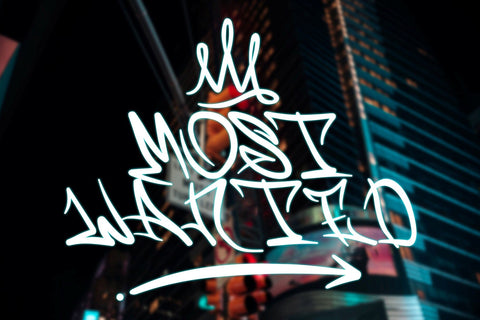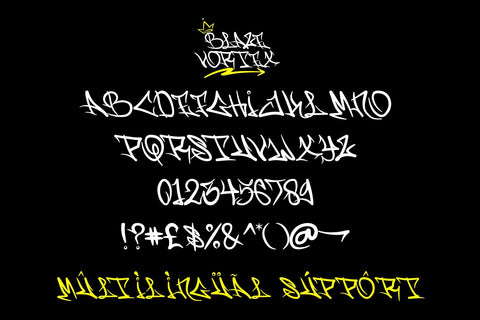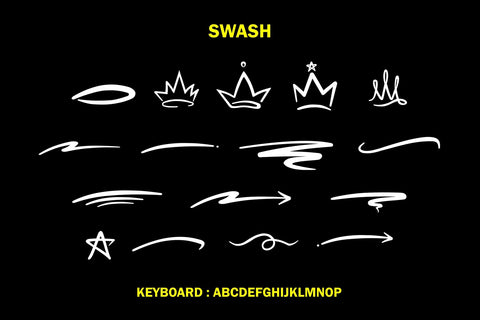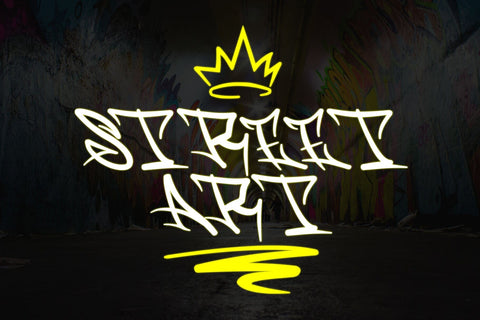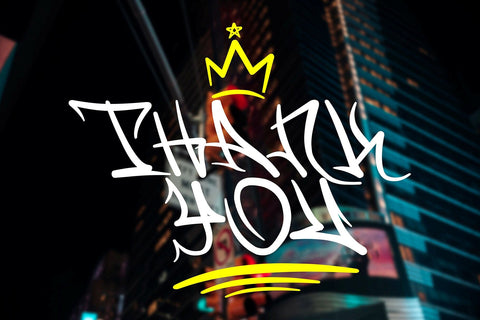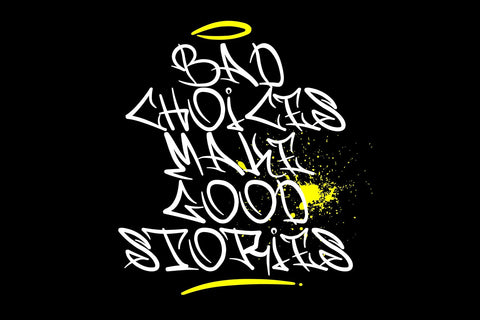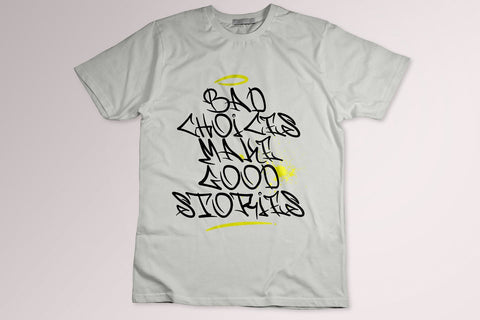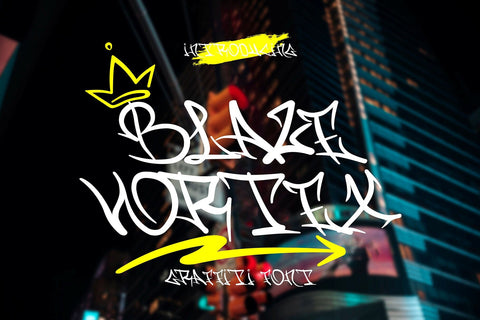
Blaze Vortex - Monoline curly Graffiti Font
"Blaze Vortex" is an edgy graffiti monoline font that adds a raw and urban touch to your designs. With its captivating swash decorations, this font takes your designs to the next level of awesomeness. Perfect for streetwear brands, music posters, and urban-themed projects, "Blaze Vortex" exudes boldness and excitement. Unleash your creativity and make your designs stand out with this electrifying font.
- Graffiti Characters looks
- Edgy ,
- Edgy,